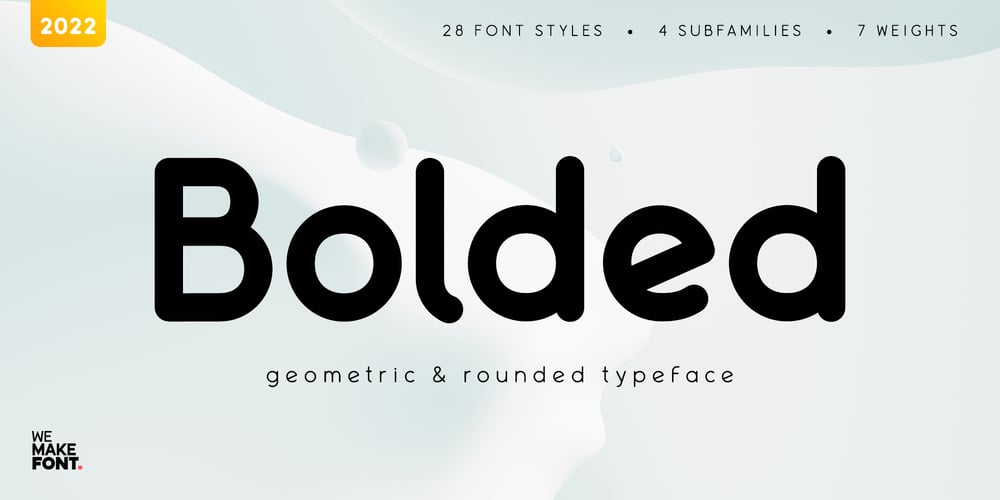
Bolded Font Family was designed by Rodolfo Seabra and published by We Make Font. Bolded contains 28 styles and family package options. Bolded is a new complete type family, designed and developed by creative professionals. Contains geometric and rounded features, optimized for both long texts and small screens and texts. The complete family offers seven weights divided between the basic, italic, condensed and condensed italic family. Created in 2022, Bolded has a modern and functional look, designed for the most diverse uses and projects. Bolded is a geometric rounded family that can meet the needs of the most varied professionals looking for a clean and elegant font family with a wide set of Latin characters.